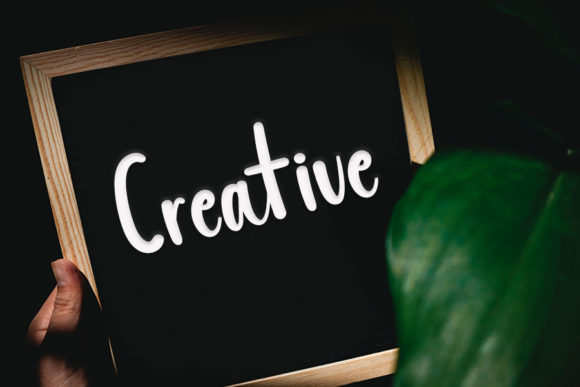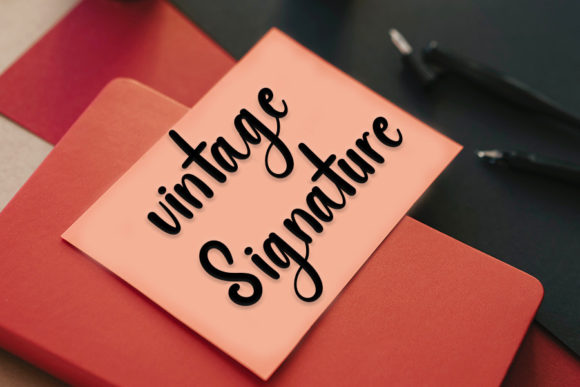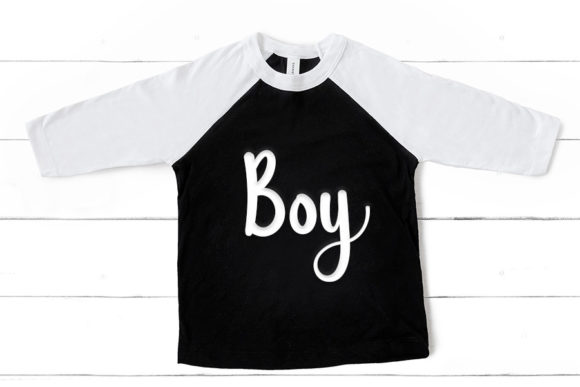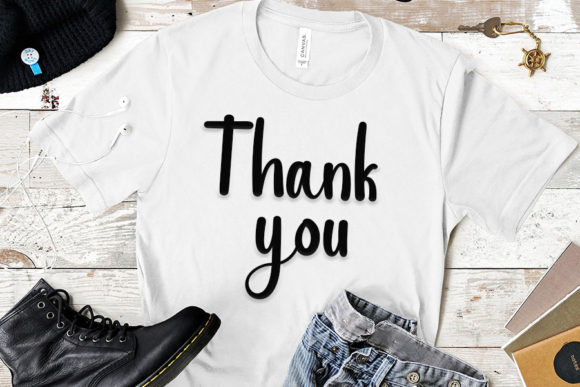
Introducing Clothing Facktory Font: The Perfect Blend of Class and Contemporary Style
In the world of typography, fonts play a crucial role in conveying the tone and personality of a brand or project. For designers and crafters, finding the right font can be a daunting task, especially when it comes to creating a unique and eye-catching visual identity. This is where Clothing Facktory Font comes in – a casual handwritten font that is carefully designed to become a true favorite among designers and crafters alike.
What Makes Clothing Facktory Font Special?
Clothing Facktory Font is a beautiful blend of classy calligraphic influences and contemporary style. Its unique design makes it stand out from other fonts, giving it a fresh and modern feel that is perfect for a wide range of projects. Whether you’re working on a fashion brand, a crafting project, or a personal blog, Clothing Facktory Font is sure to bring a touch of elegance and sophistication.
Key Features of Clothing Facktory Font
- Handwritten Style: Clothing Facktory Font has a beautiful handwritten style that gives it a personal and unique touch.
- Classy Calligraphic Influences: The font maintains its classy calligraphic influences, making it perfect for projects that require a touch of elegance.
- Contemporary and Fresh: Despite its classic influences, Clothing Facktory Font feels contemporary and fresh, making it perfect for modern projects.
- Easy to Read: The font is easy to read, making it perfect for body text and other applications where readability is important.
Why Designers and Crafters Love Clothing Facktory Font
Designers and crafters love Clothing Facktory Font for its versatility and ease of use. The font is perfect for a wide range of projects, from fashion branding and advertising to crafting and DIY tutorials. Its unique style makes it easy to create visually appealing text that stands out from the crowd.
How to Use Clothing Facktory Font in Your Projects
- Fashion Branding: Use Clothing Facktory Font to create stunning fashion branding, including logos, business cards, and packaging.
- Crafting Tutorials: Use Clothing Facktory Font to create visually appealing crafting tutorials, including DIY instructions and patterns.
- Social Media Graphics: Use Clothing Facktory Font to create stunning social media graphics, including Instagram posts and Facebook updates.
Tips for Getting the Most Out of Clothing Facktory Font
Here are a few tips for getting the most out of Clothing Facktory Font:
- Experiment with Different Sizes: Clothing Facktory Font looks great in a variety of sizes, from small body text to large headings.
- Pair it with Other Fonts: Clothing Facktory Font pairs well with other fonts, including sans-serif fonts and script fonts.
- Use it Consistently: Use Clothing Facktory Font consistently throughout your project to create a cohesive visual identity.
Clothing Facktory Font is a beautiful and versatile font that is perfect for designers and crafters. Its unique blend of classy calligraphic influences and contemporary style makes it perfect for a wide range of projects. Whether you’re working on a fashion brand, a crafting project, or a personal blog, Clothing Facktory Font is sure to bring a touch of elegance and sophistication. So why wait? Fall in love with Clothing Facktory Font and let it bring your projects to the highest levels!